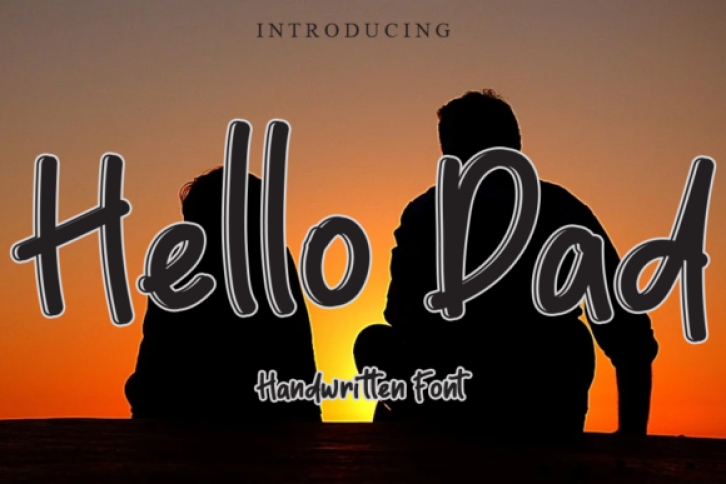
Hello Dad is a trendy and playful handwritten font. Created with the help of a brush pen, this font has a beautiful flow attached, brightening up each of your designs!